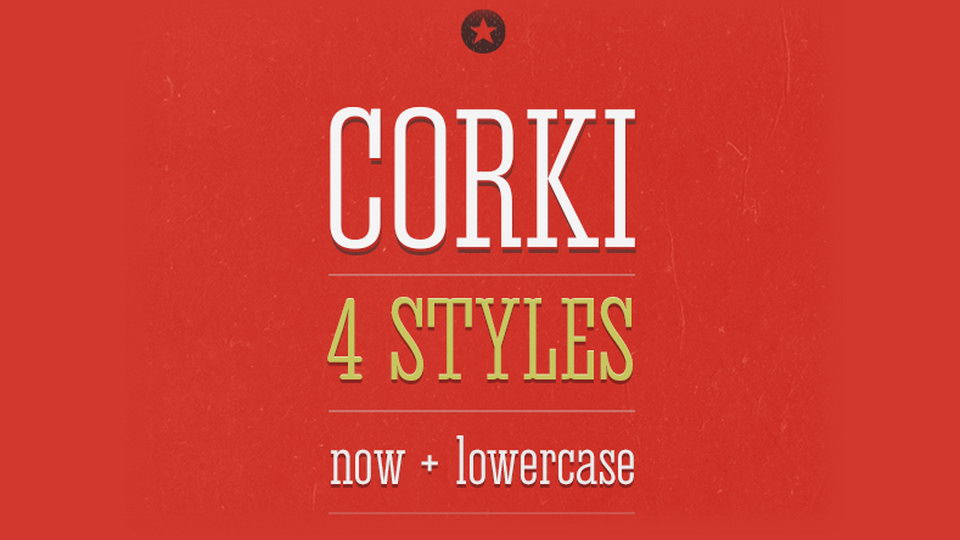
Corki Font
Corki is a condensed slab serif font family. It comes in 4 different styles: Normal, Rounded and their alternatives with the so called “Tuscan” styled serifs. The typeface contains full set of glyphs, including multilingual support.
Corki typeface suitable mostly for headlines and short texts, also looks great for posters, banners, social media and other creative designs.